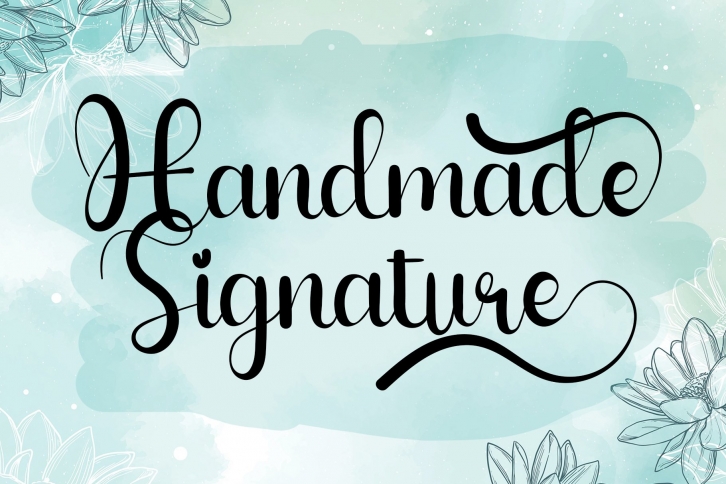
Handmade Signature is a great font that was designed by Giart Studios. Imagine the amount of combinations you can create using this font! The archive is 18.24 MB and it was released on July 12, 2022. Handmade Signature looks beautiful on wedding invitations, greeting cards, logos, posters, labels, t-shirt designs, logos, business cards and is perfect for use in ink or watercolor works, fashion, magazines, packaging and food menus, children's books and more!